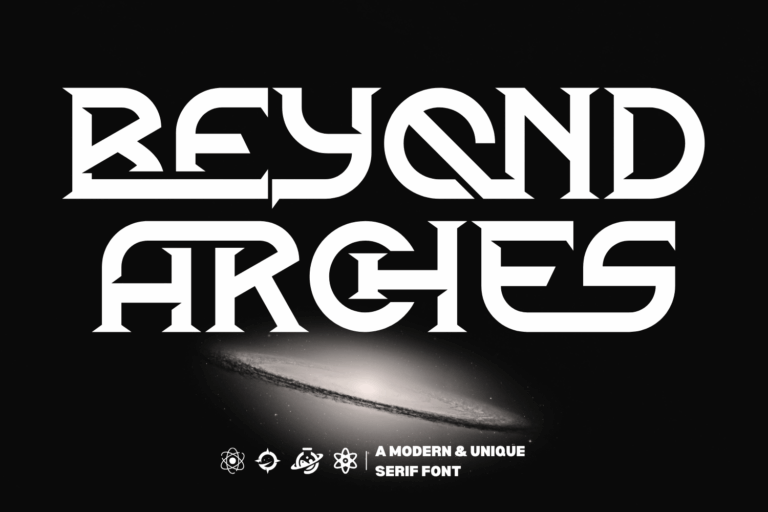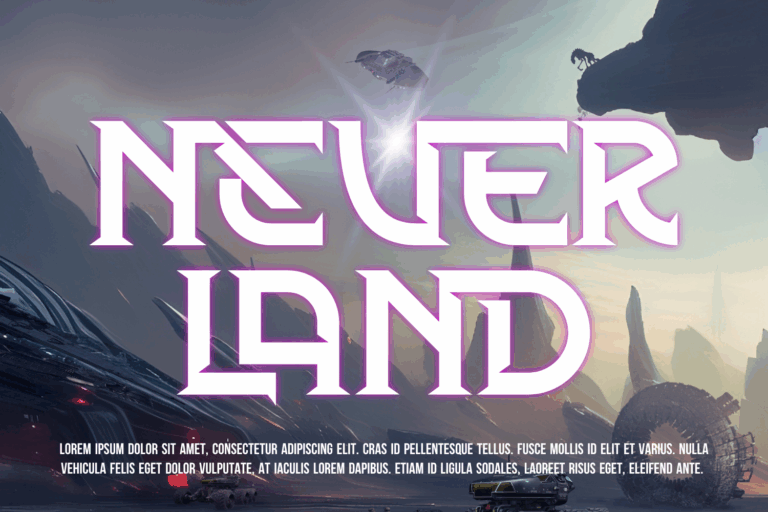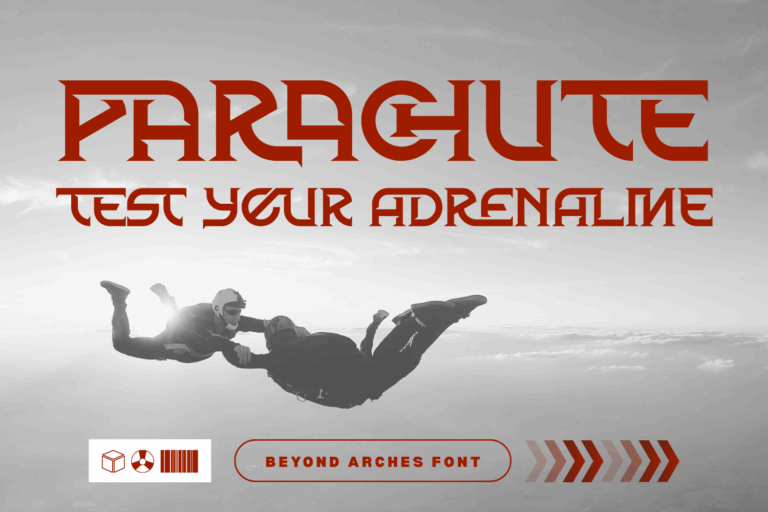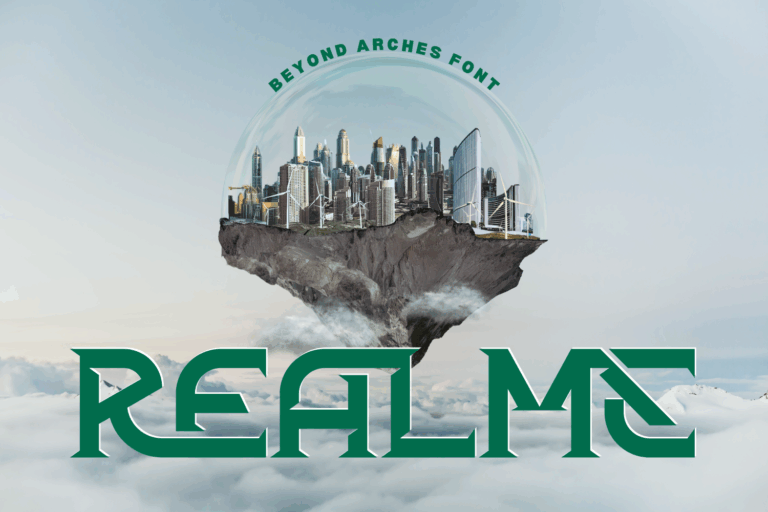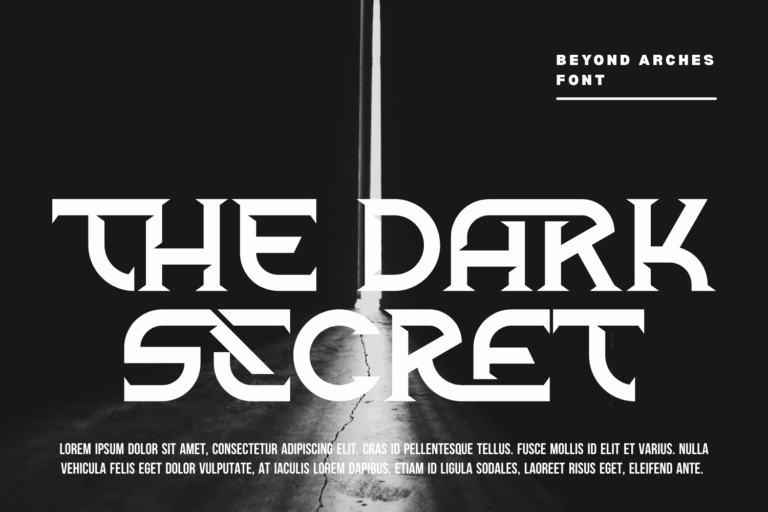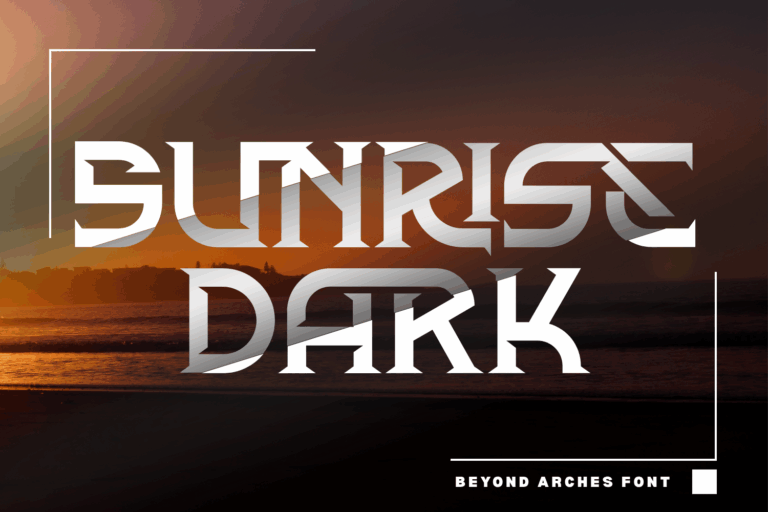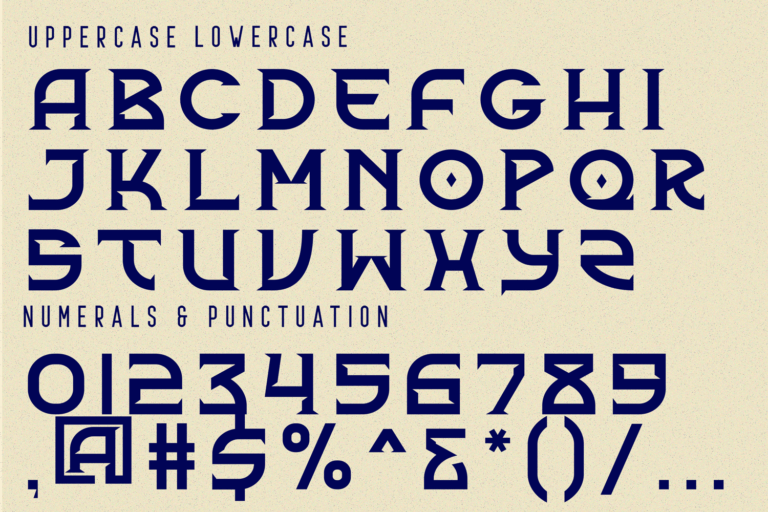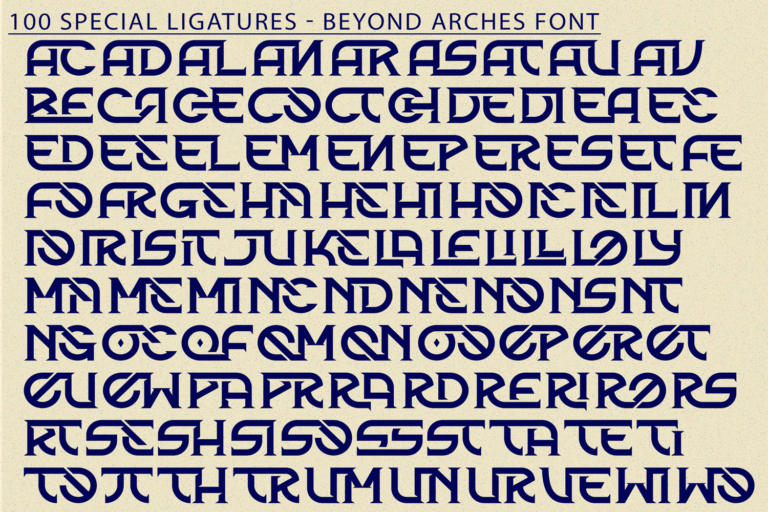
Beyond Arches – Futuristic Font. A techno display futuristic display font that bridges the worlds of geometry and technology. With its sharp-edged characters, calculated cuts, and unique bar connectors, this font evokes the aesthetics of sci-fi movies, cyberpunk universes, and next-gen innovation. Each letter is meticulously designed to maintain legibility while pushing the boundaries of conventional form—making it ideal for logos, game covers, tech products, space-themed posters, and digital UI.
✨ Font Features:
• Uppercase Letters
• 100+ Special Ligatures
• Multilingual Support with Accented Characters
✨ About 100 ligatures combined with Stylistic Alternates Font:
AC AD AL AN AR AS AT AU AV BE CA CE CH CO CT DE DI EA EC ED EE EL EM EN EP ER ES ET FE FO FR GE HA HE HI HO IE IC IL IN IO IR IS IT JU KE LA LE LI LL LO LY MA ME MI NC ND NE NG NO NT NS OC OF OM ON OO OP OR OT OU OW PA PR RA RD RE RI RO RS RT SE SH SI SO SS ST TA TE TH TI TO TR TT UM UN UR VE WI WO